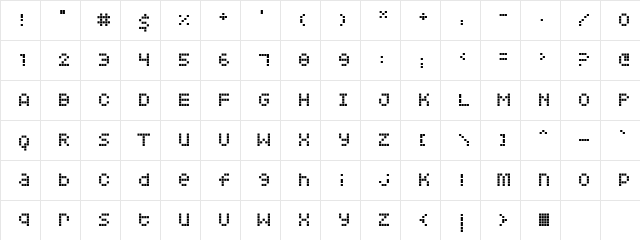
Squarodynamic 06 Regular Font Preview
Squarodynamic 06 Regular
Design Context for Squarodynamic 06 Typeface
Squarodynamic 06 offers clean, dependable letterforms without strong stylistic allegiance, making it a practical choice for designers who need flexibility.
Pro Tip: Use Squarodynamic 06 in both headline and body roles to test its range before committing to a single application.